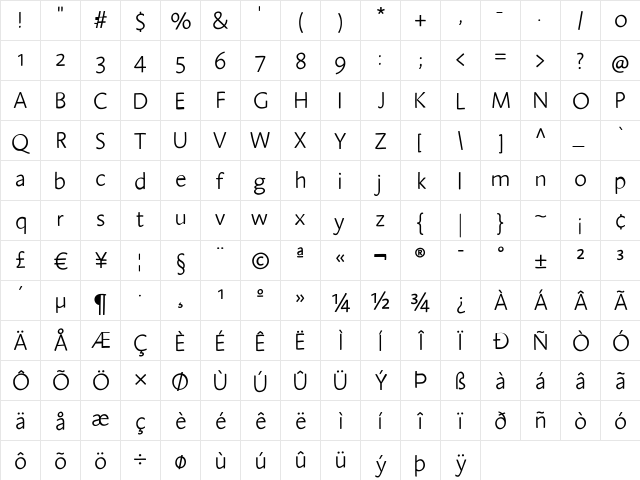
AmorE Regular
Design Context for AmorE Typeface
AmorE is a composed and adaptable typeface that performs quietly and consistently across a wide range of design contexts.